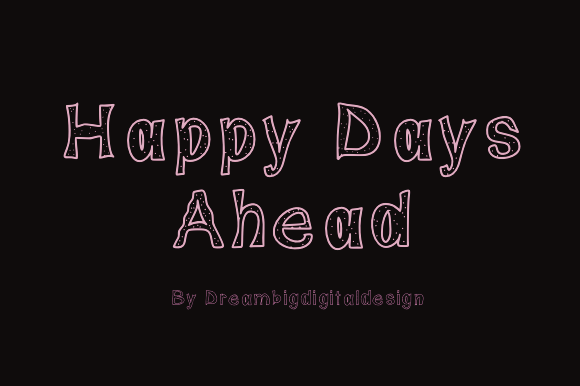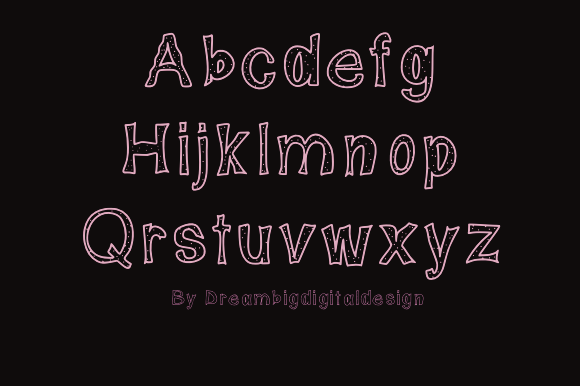
Introduction to Patriotic Street Dots Font Font
Fonts play a crucial role in design, and the Patriotic Street Dots Font font is a typeface that brings both character and versatility to any project. Whether you’re working on a branding project, a website, or a print design, the Patriotic Street Dots Font font offers a unique style that can elevate your work.
Patriotic Street Dots is a modern and captivating display font designed to make a bold statement.
With sleek lines and contemporary curves, this font is perfect for catching the eye and commanding attention Itβs a minimalist design and stylish look make it a great choice for modern branding, advertising, and design projects.
Key Features of Patriotic Street Dots Font Font
Why Choose Patriotic Street Dots Font Font?
The Patriotic Street Dots Font font is more than just a typeface β it’s a design tool that helps you communicate your message with style and clarity. Its unique character set and versatile design make it suitable for a wide range of applications, from elegant invitations to bold headlines.
With its carefully crafted letterforms and balanced proportions, the Patriotic Street Dots Font font ensures readability and visual appeal across all mediums.
What makes Patriotic Street Dots Font font special?
The Patriotic Street Dots Font font stands out with its unique design, exceptional readability, and versatility across various design applications.